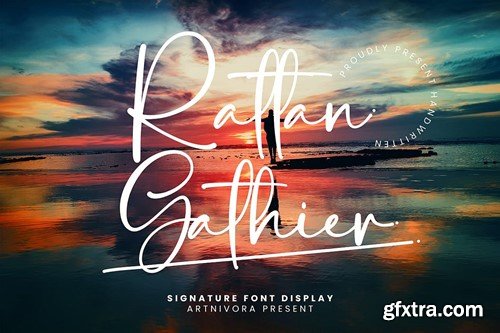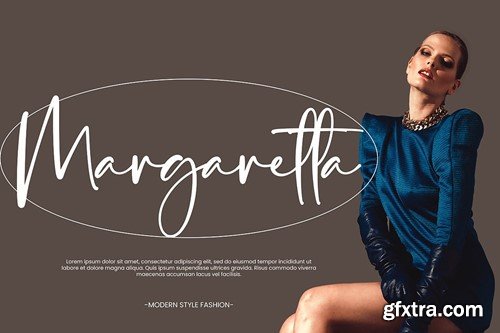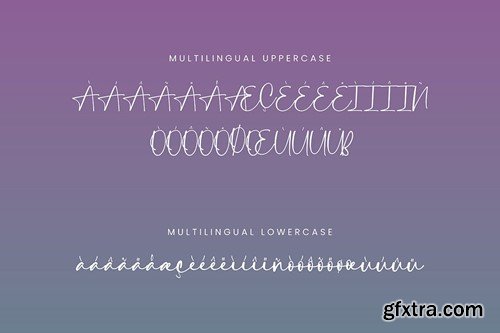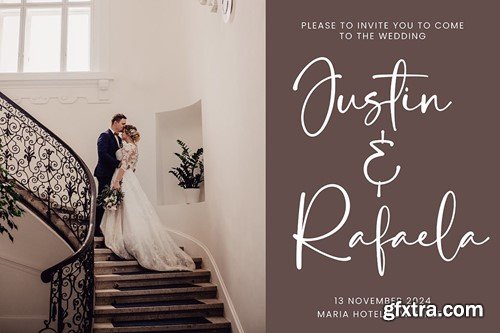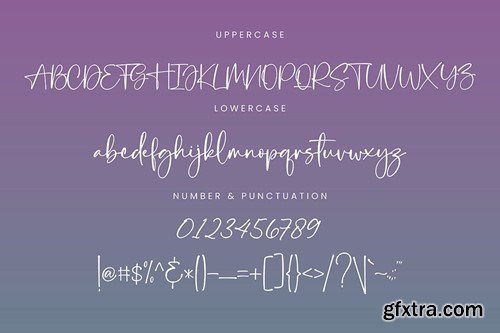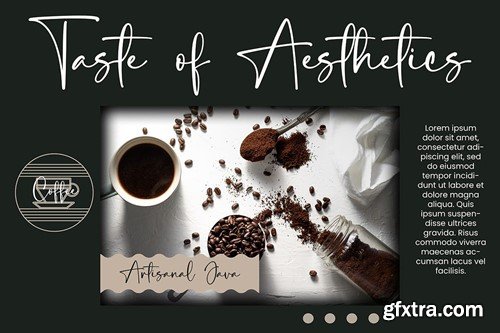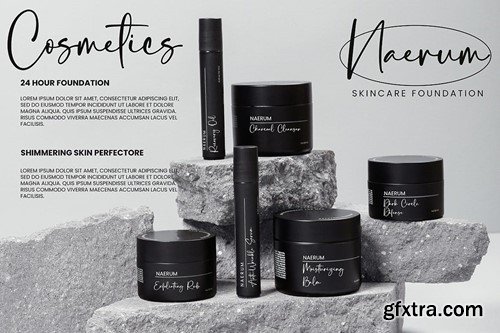
Rattan Gathier - 签名字体 RMC7KFJ
Rattan Gathier - Signature Font RMC7KFJ
Rattan Gathier - Signature Font
Introducing Rattan Gathier, a simple and signature font. So perfect for you who needs a typeface for logo designs, magazine, social media, brochure, and many more.
Features
• Uppercase
• Lowercase
• Punctuation
• Numerals
• Multilingual Support